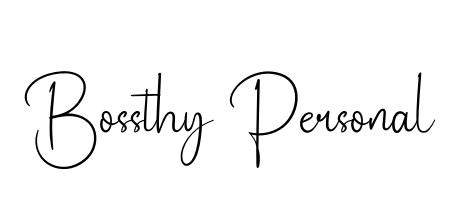
Bossthy Personal
Bossthy Personal: A script font exuding effortless elegance. Its flowing curves and delicate strokes create a sense of sophisticated intimacy, perfect for branding projects that emphasize personal connection and high-end quality. The slightly whimsical touch adds warmth without sacrificing professionalism.